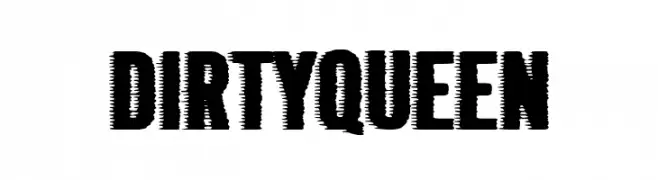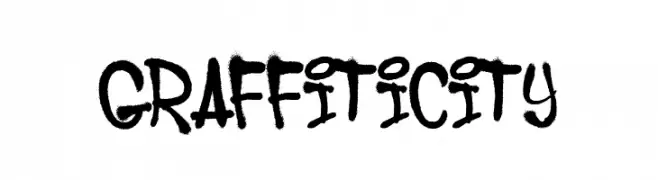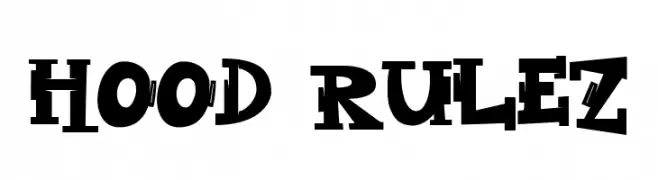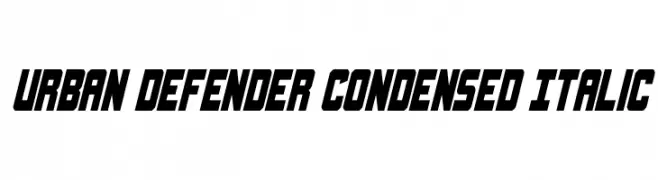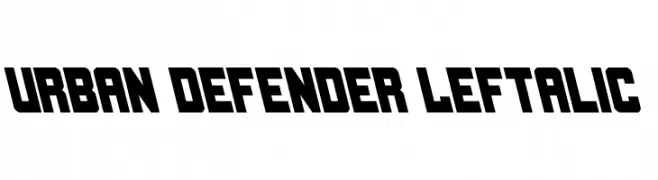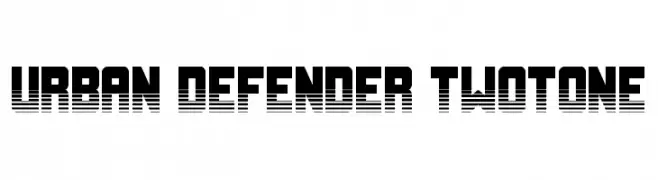
A bold, geometric font with a two-tone striped effect.
A bold, angular font with a dynamic, slanted style.
A bold, condensed, and italicized font with a modern, dynamic style.
A bold, geometric font with a futuristic and industrial design.
A bold, condensed font with geometric shapes and a modern look.
A bold, graffiti-style font with a dripping paint effect, perfect for urban-themed designs.
A bold, distressed font with a gritty, urban style.
A bold, distressed font with a rugged, urban aesthetic.
A bold, graffiti-inspired font with a dynamic and urban style.
A bold, edgy font with sharp angles and an urban flair.